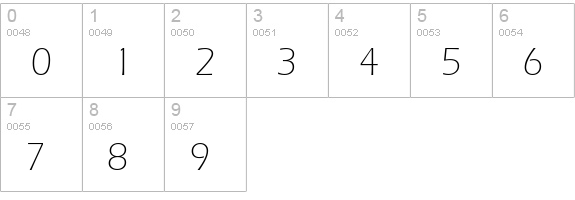
Ennis-Light-Regular Font Details
Ennis-Light-Regular is a refined, elegant variant in the Ennis typeface family \xE2\x80\x94 well suited to elegant body text, refined sub-headings, and luxury branding.
Ennis-Light-Regular is a modern and elegant font that exudes sophistication and clarity. With its sleek lines and balanced proportions, this versatile typeface is perfect for a wide range of design projects, from branding to editorial layouts. The light weight of the font adds a touch of airiness and delicacy, making it ideal for conveying a sense of refinement and subtlety. What sets Ennis-Light-Regular apart is that it is available for free download at FontsMarket.com. This makes it easily accessible to designers and creatives looking to elevate their work with a high-quality font without breaking the bank. With Ennis-Light-Regular, you can effortlessly achieve a polished and professional look in your designs, whether for print or digital media. Embrace the beauty and versatility of Ennis-Light-Regular today and take your projects to the next level.